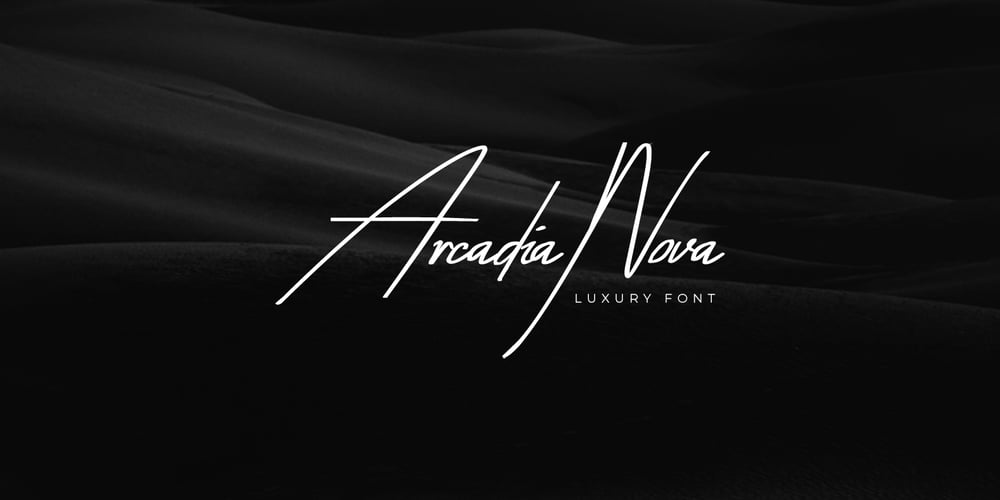
Arcadia Nova Font Family was designed by Lisha Joseph, Jean Johnson and published by Designova. Arcadia Nova contains 1 styles and family package options. About the ProductArcadia-Nova is a stunningly beautiful handwritten font for luxury/branding / wedding invites/greeting cards / promotional graphics. Arcadia-Nova is handmade, adding the finest touch of perfection and aesthetics at its best level.Advanced Kerning & Essential Ligatures:We have performed advanced, in-depth kerning to make sure the font looks amazing on all possible letter combinations. Arcadia-Nova includes all essential ligatures shown in the preview (more will be added in the next update).